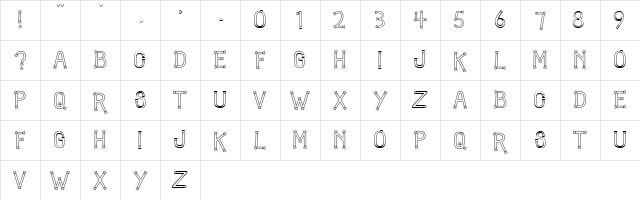
CK Candy Corn Regular
Design Context for CK Candy Corn
CK Candy Corn is a composed and adaptable typeface that performs quietly and consistently across a wide range of design contexts.